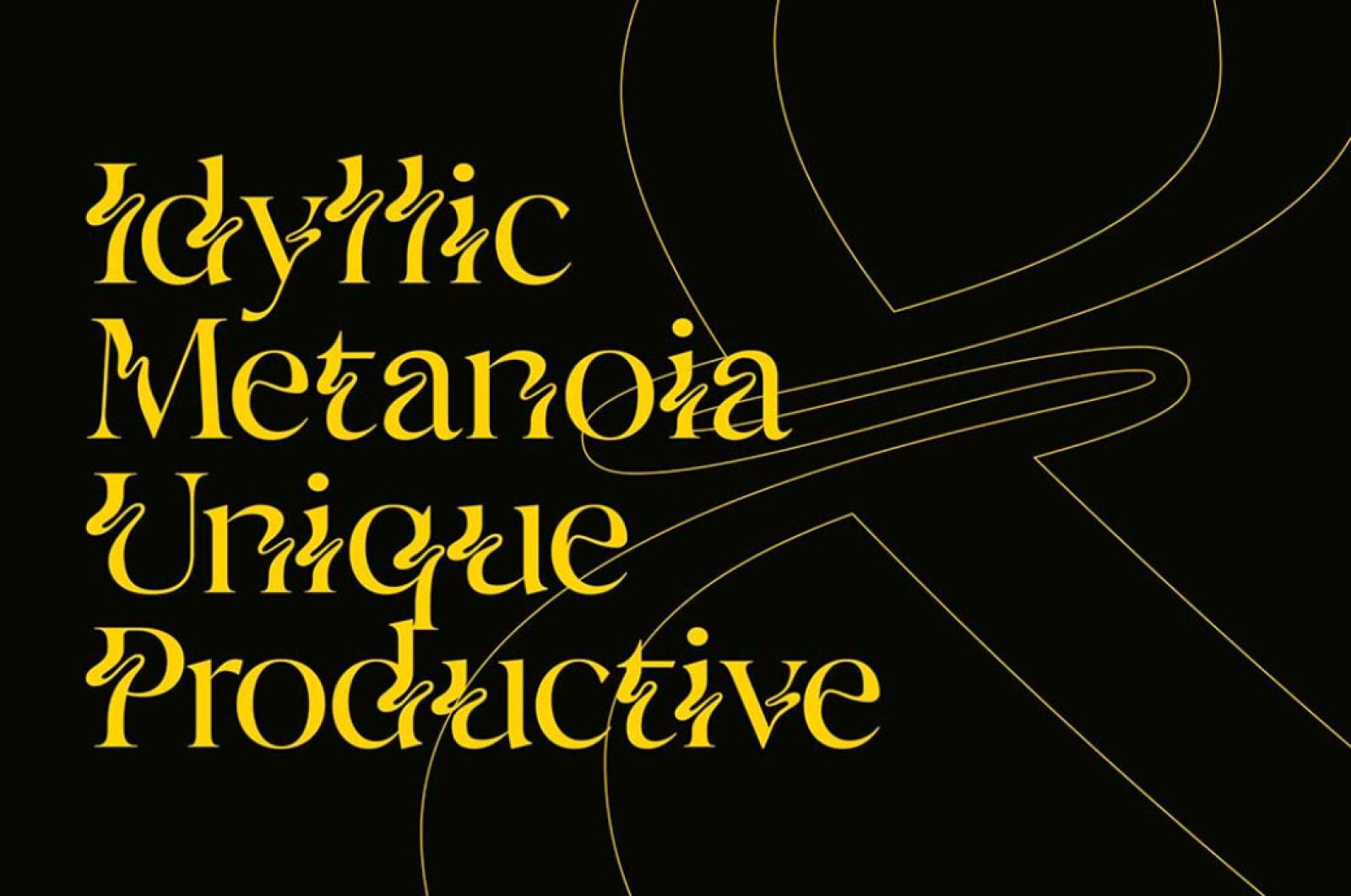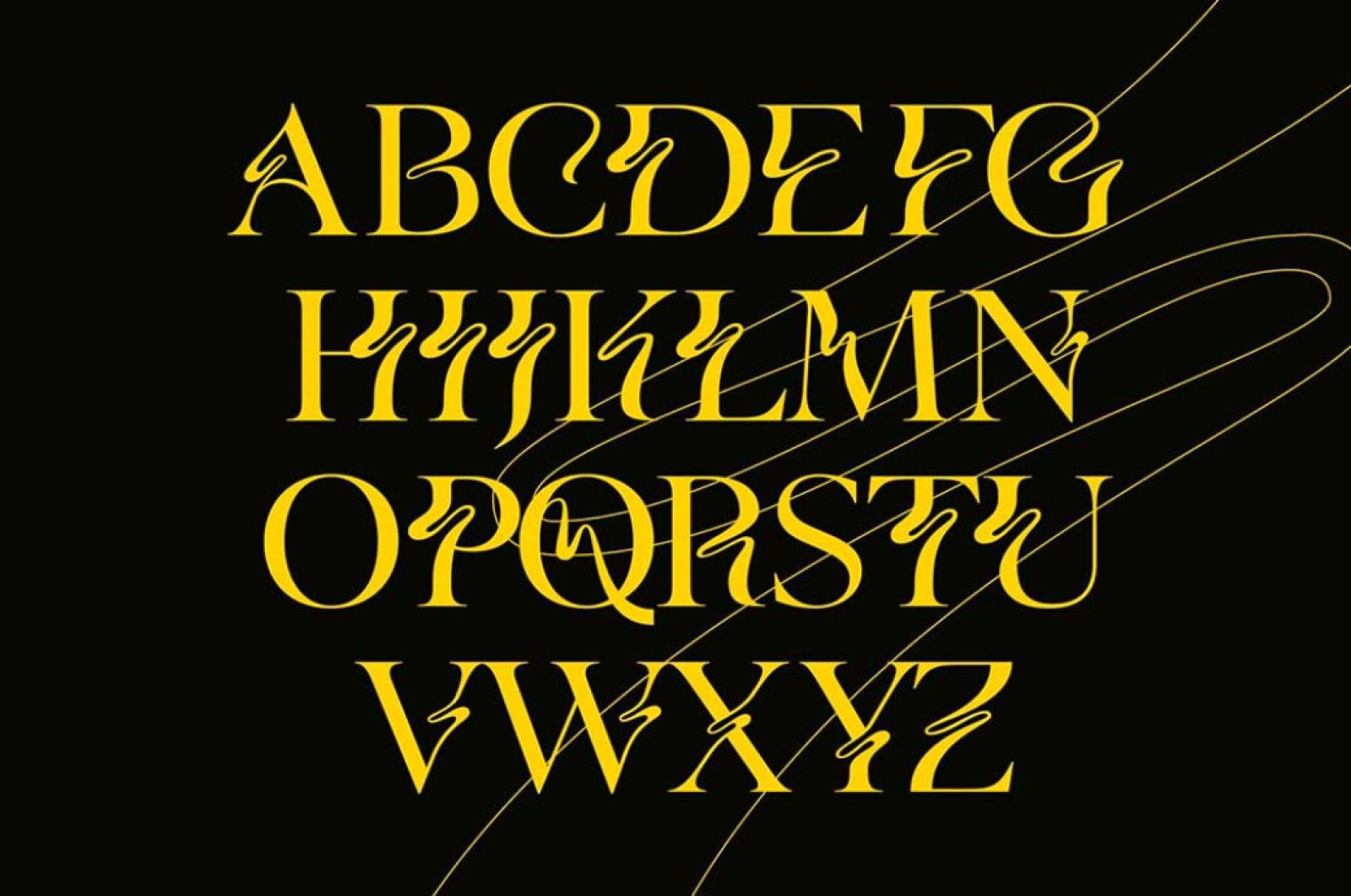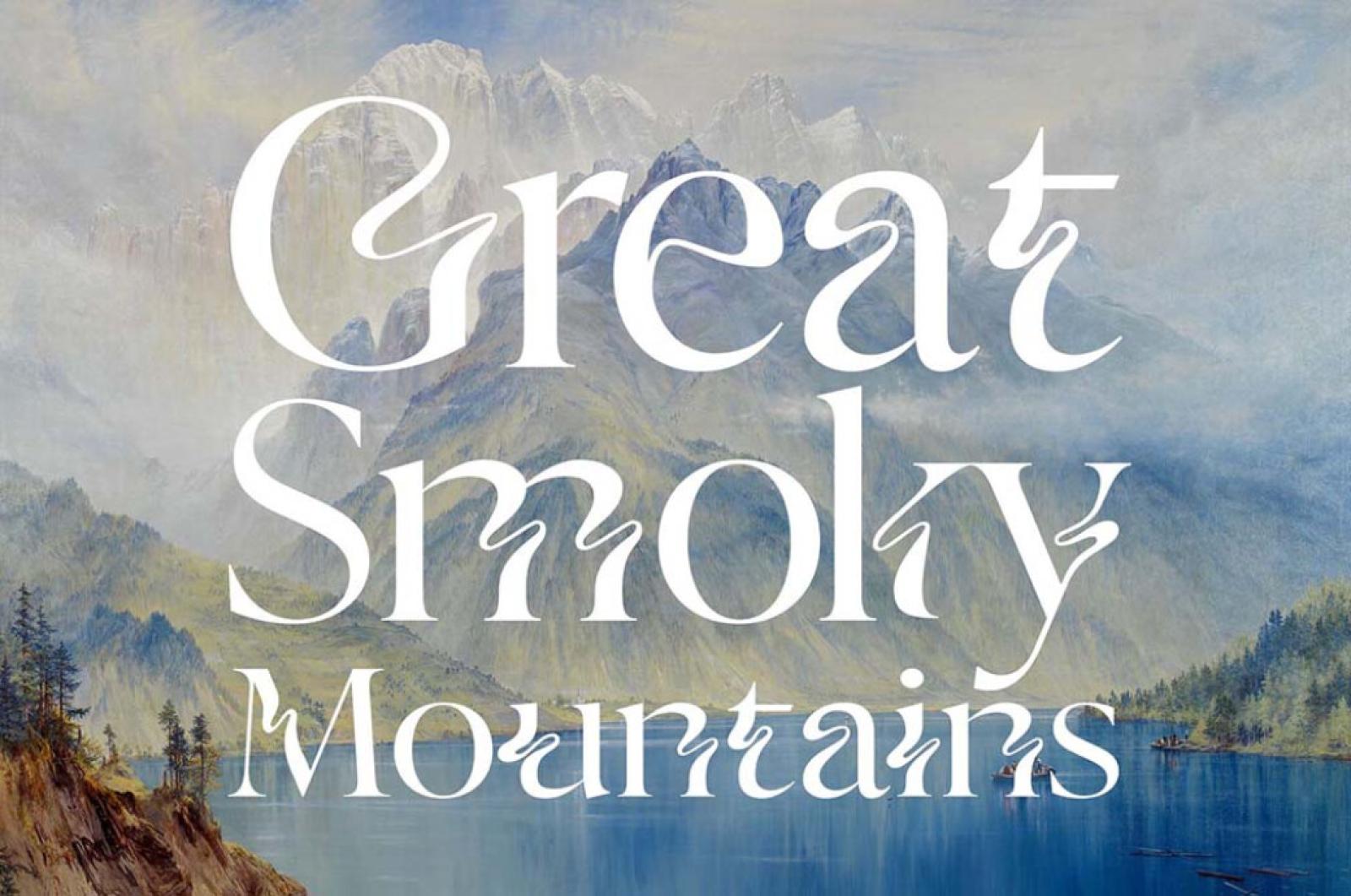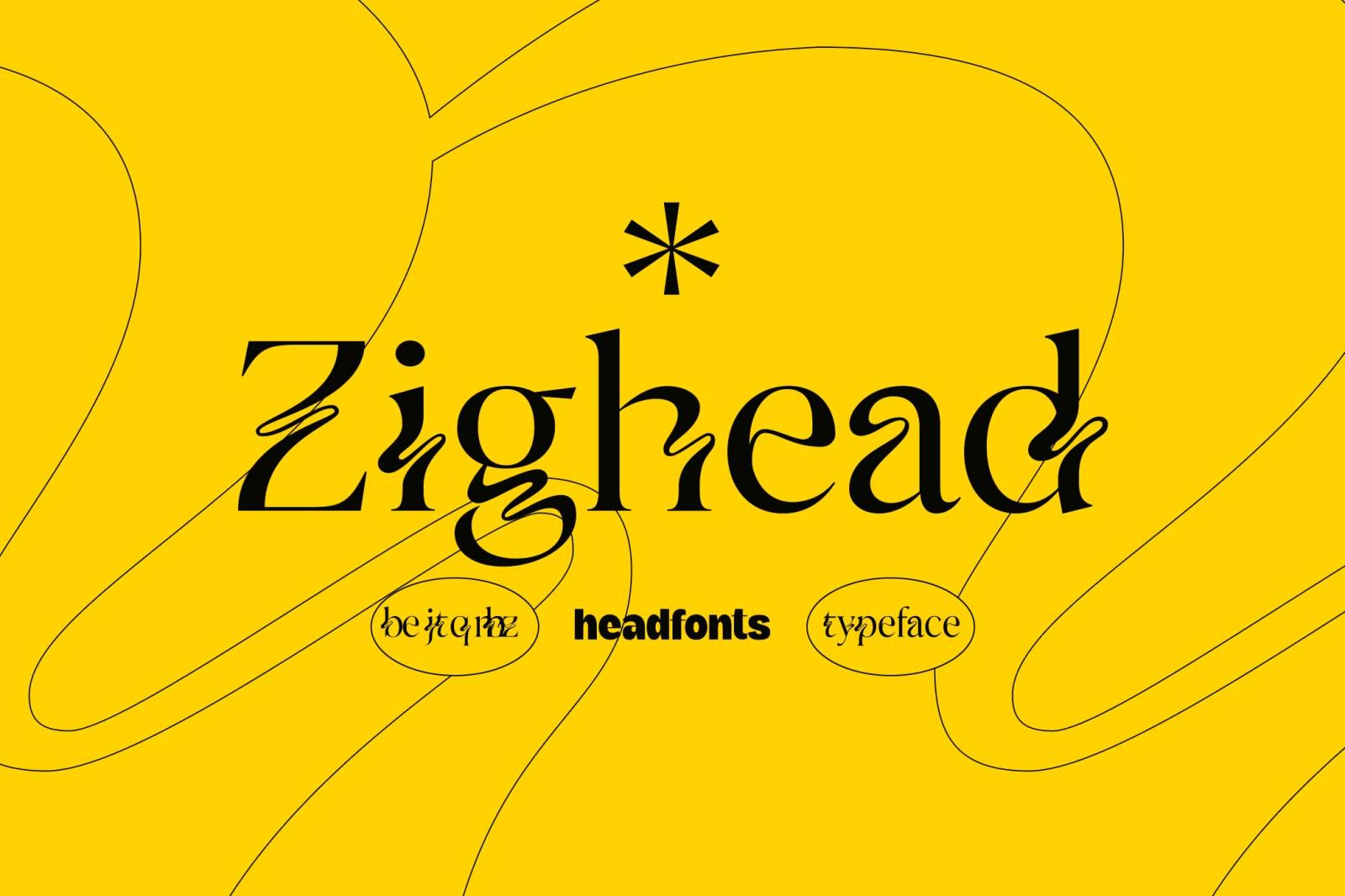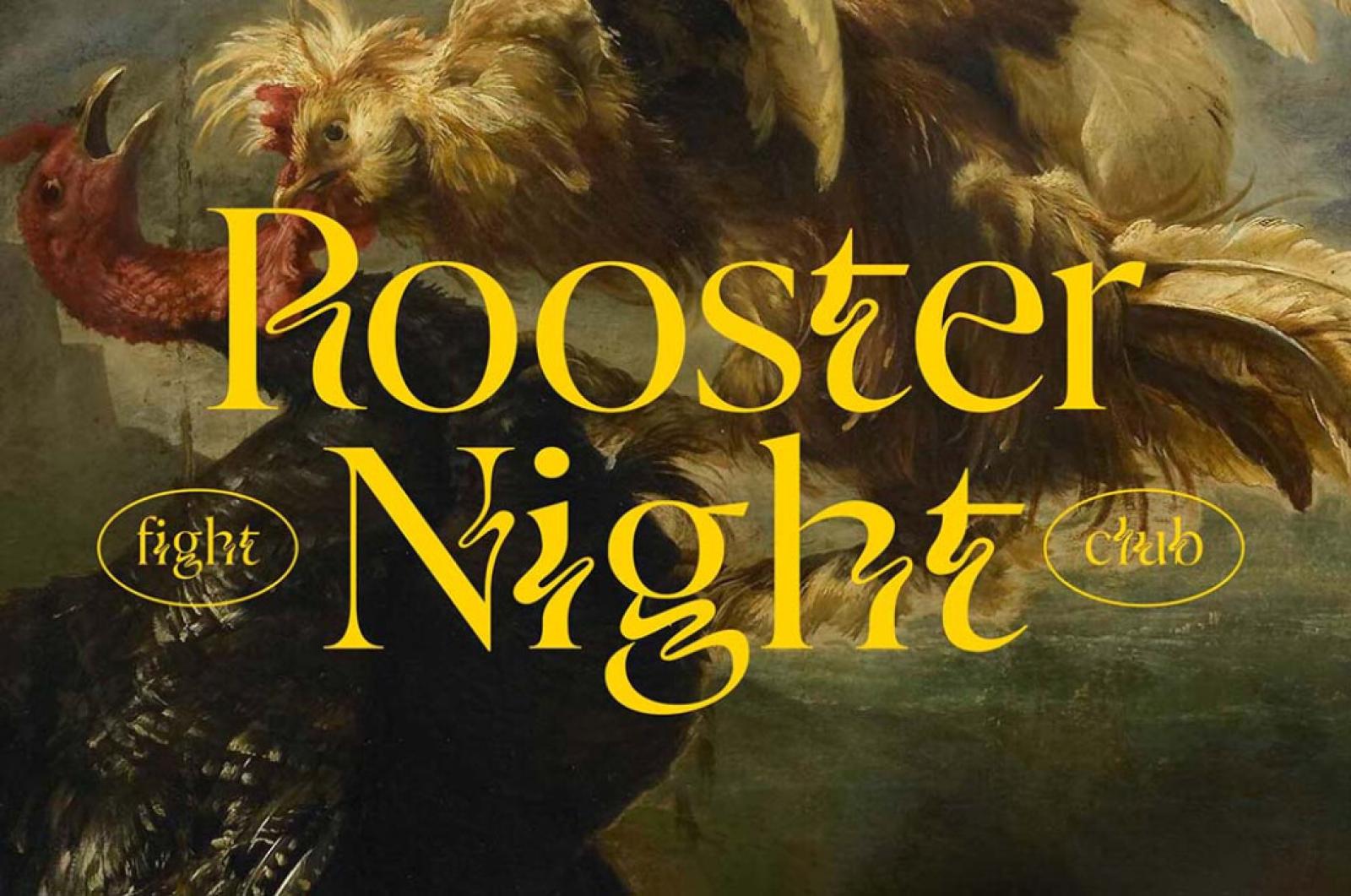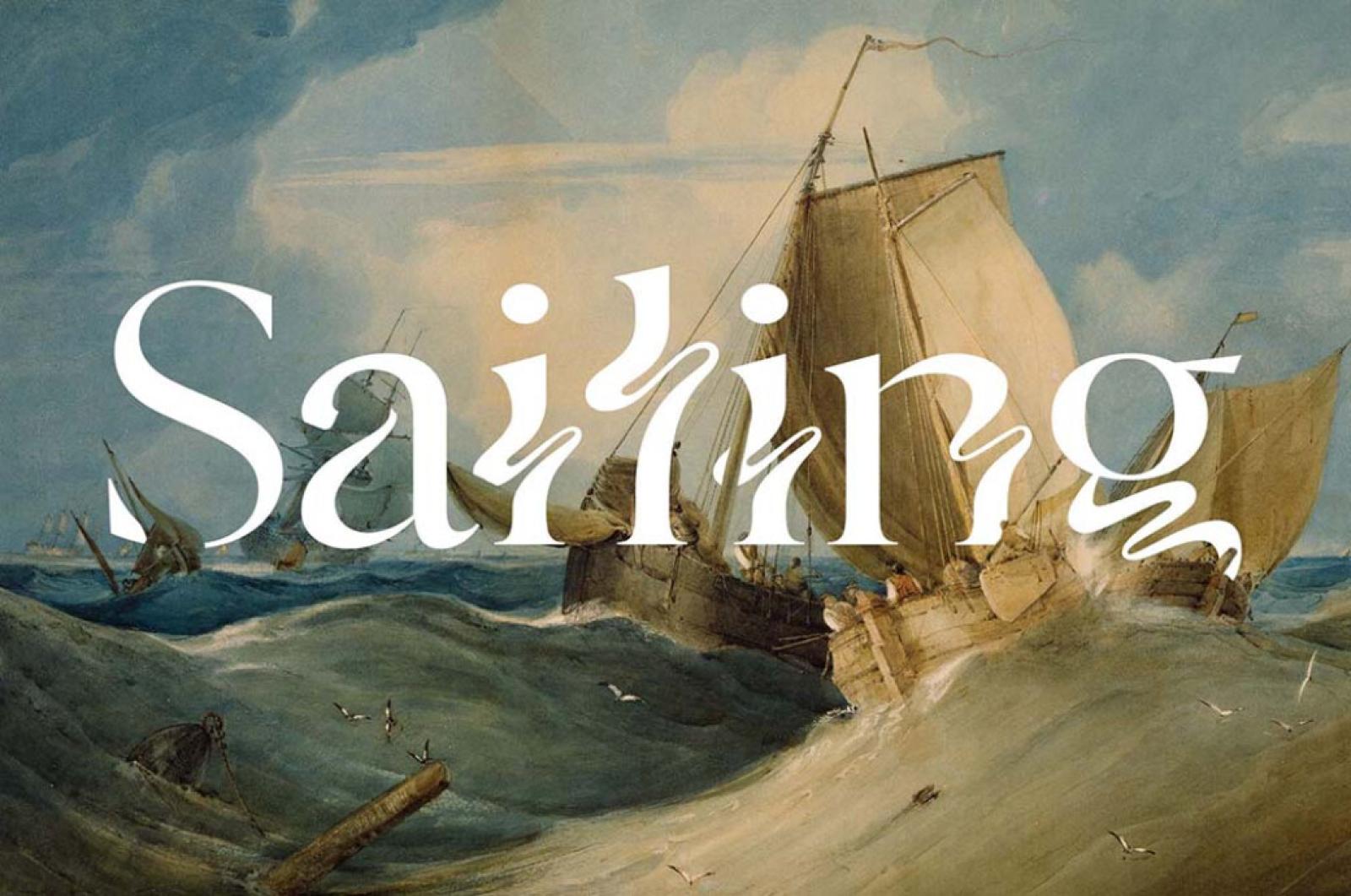
Zighead Display Font
If the text looks whirly-twirly, there's nothing wrong with your vision! It's more likely you are watching Zighead, a font full of motion and trendy twists!
Zighead brings together everything designers like about modern fonts: classic serif geometry, Art Nouveau visual features, and some electrified flowing elements. Ain't it a bingo? We're sure it is! Zighead is an uppercase and lowercase decorative font with standard Latin language support, numerals, and punctuation. For sure, it will make your posters and prints stand out — and its highly stylized, unique glyphs were made precisely for that!